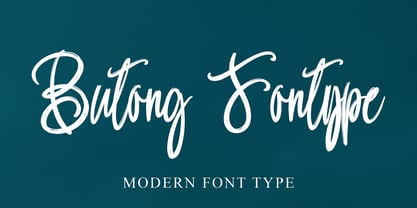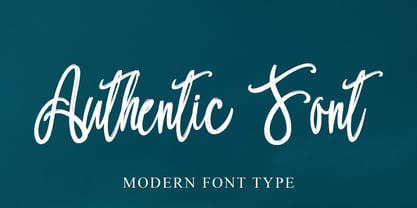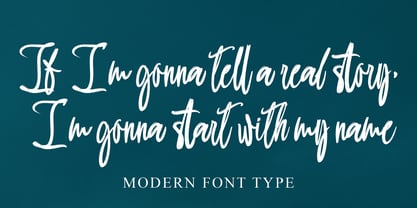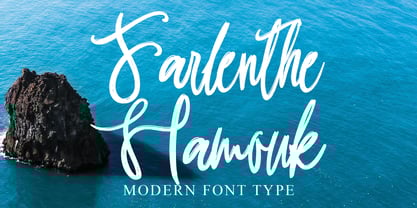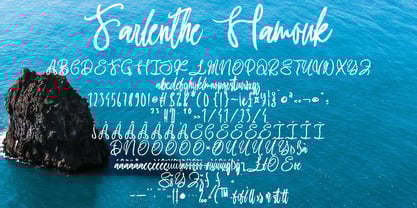
Farlenthe Hamouk
The Farlenthe Hamouk Font Family was designed by Dhoni Trihatmoko and published by Ayska. Farlenthe Hamouk contains 1 styles. More about this family
Discover the enchanting universe of Farlenthe Hamouk, a remarkable font that seamlessly fuses contemporary style with the rustic charm of hand-rendered typography. Uniquely sophisticated, Farlenthe Hamouk emanates a refined allure that sets it in a league of its own, marking it as an indispensible tool for all your creative endeavors. Let the captivating spell of this font captivate your blog readers, lend a distinguished signature style to your digital planner designs, enrich your invitations with an added hint of mystique, or express emotions in your handmade greetings cards with articulate elegance. Delve into the timeless beauty and inventive zest of Farlenthe Hamouk as it breathes life into your meticulously composed photo compilations or tailor-made home accessories ranges. The font's remarkable knack for turning ordinary digital craftwork into compelling visual stories is unparalleled. Elevate your creative journey with Farlenthe Hamouk in your repertoire and marvel as your artistic vision evolves into exclusive works of unmatched splendor. Surrender to the hypnotic design power of Farlenthe Hamouk and see your creative concepts ascend into breathtaking, luminous works of art.